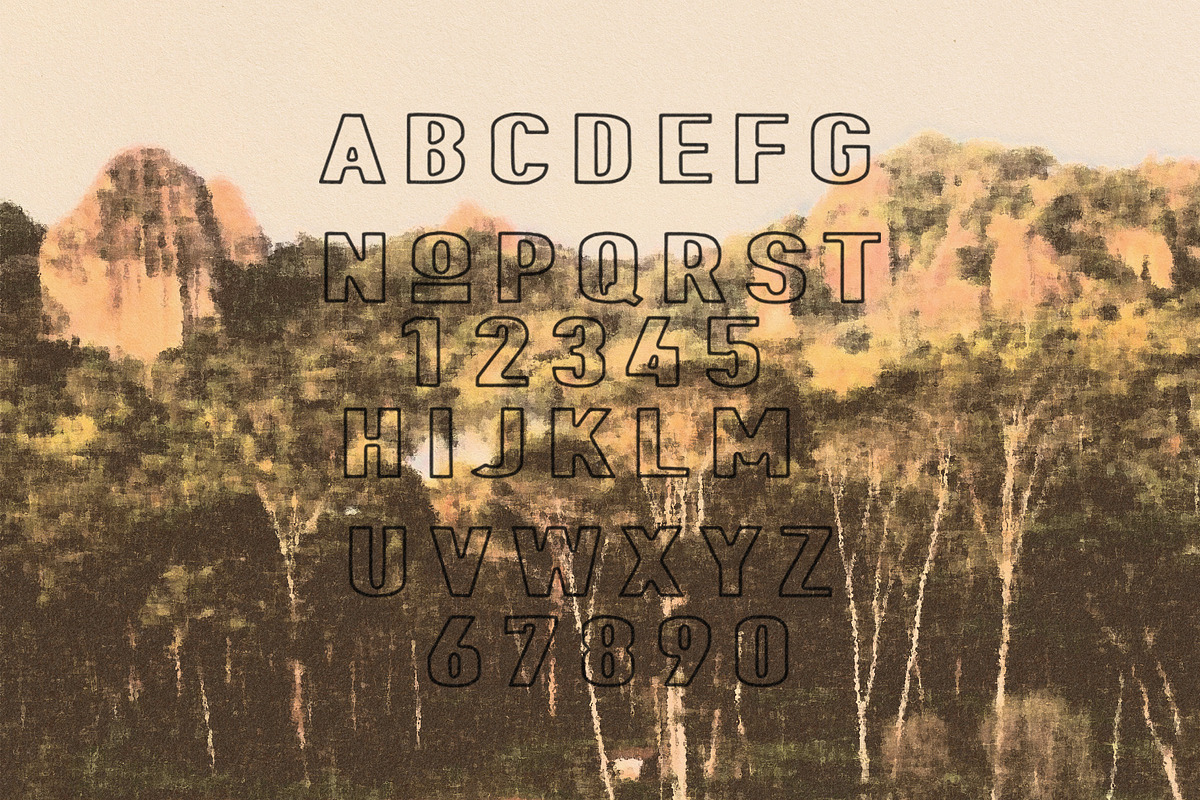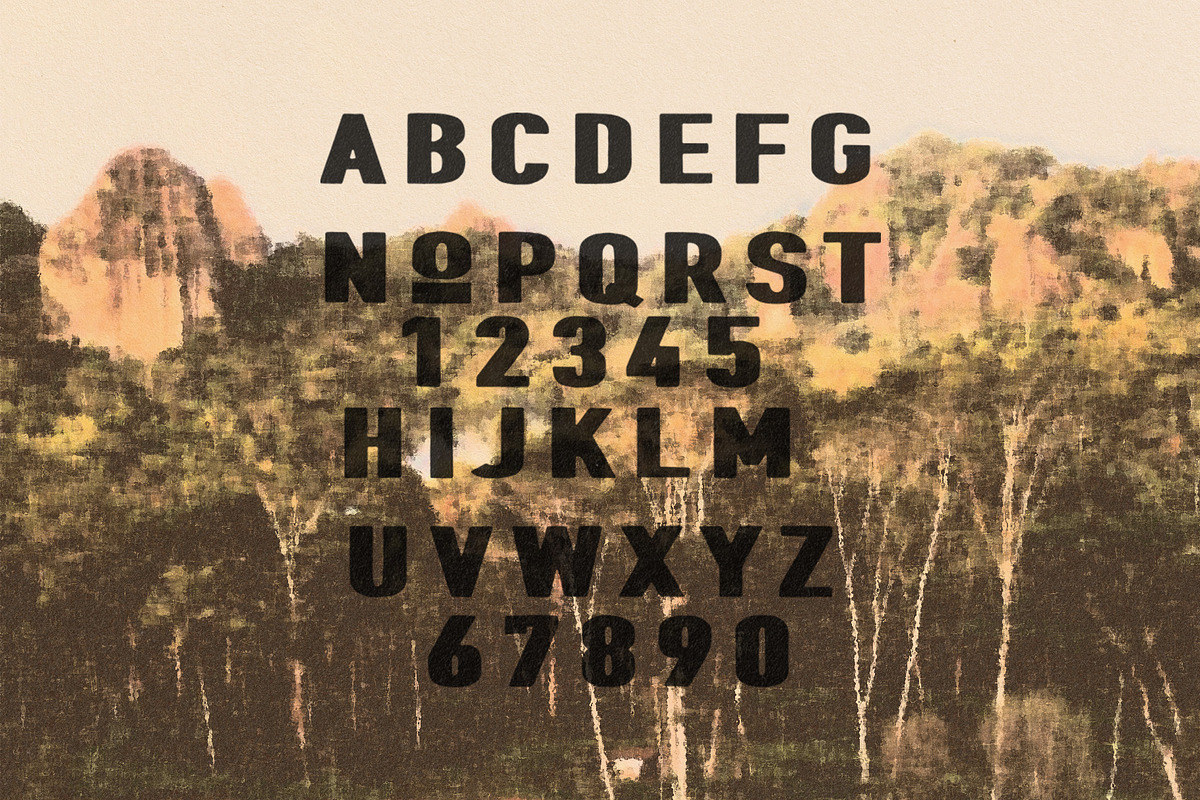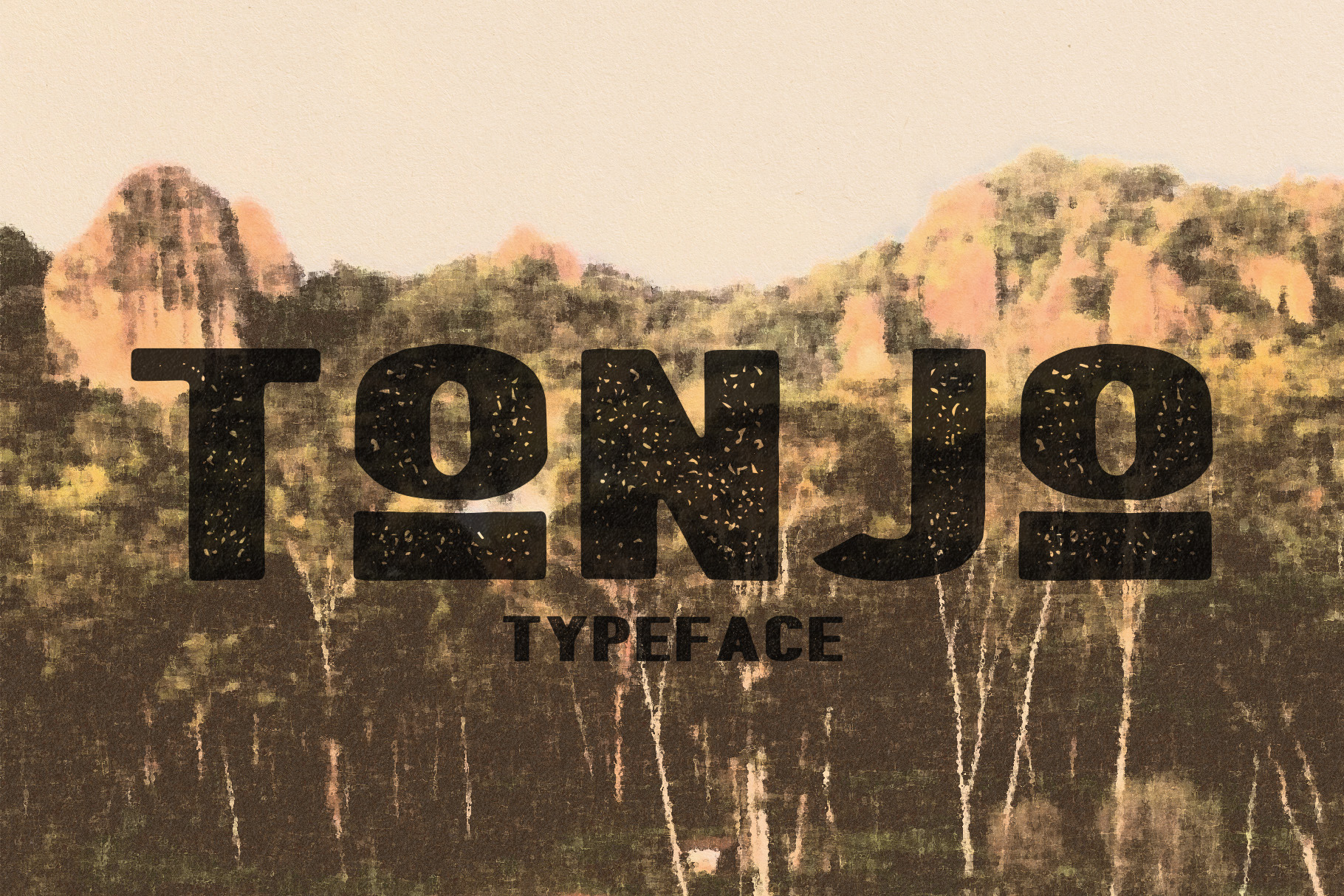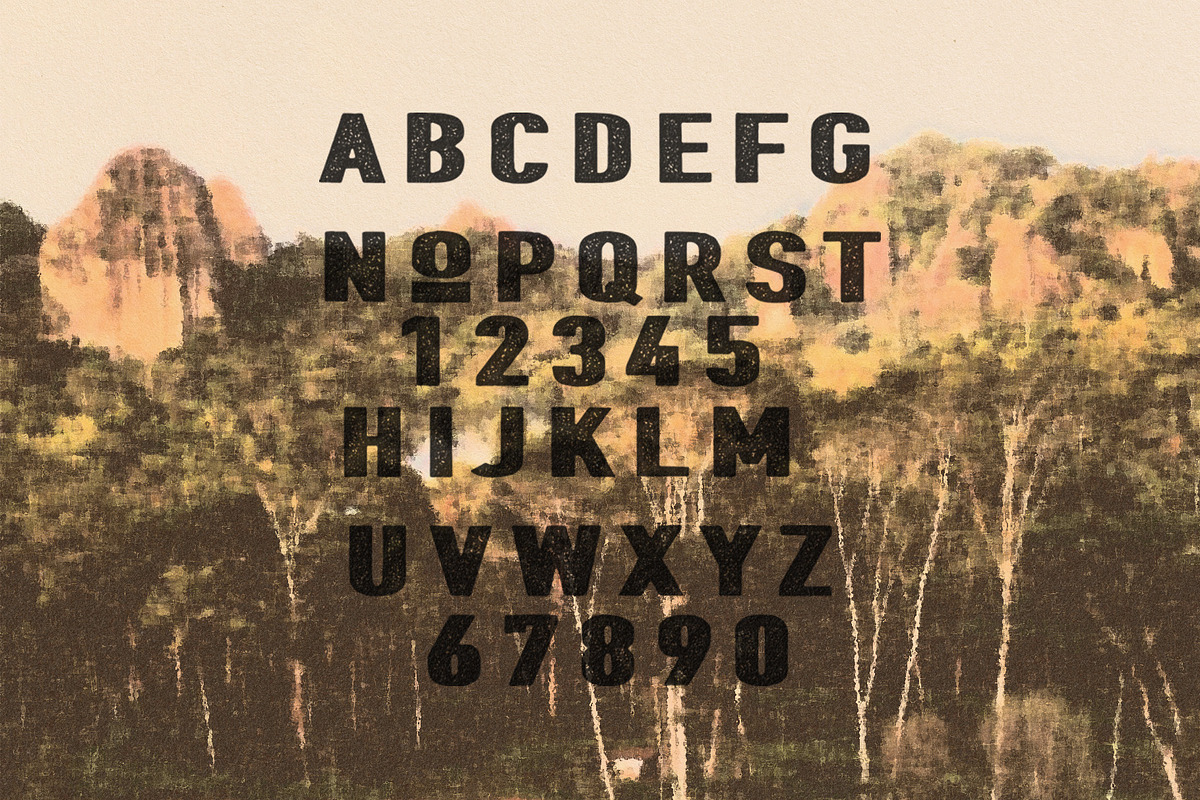
Tonjo Typeface
Tonjo Typeface Tonjo is a vintage typeface with a bold, solid, and characterful appearance. Each capital letter in this font has a strong and bold geometric shape, suitable for retro-themed designs, propaganda-style, or designs that want to display a strong, masculine, and authoritative impression.
Tonjo's distinctive feature is the smooth textured touch that makes it look like a stencil or manual screen print, giving an authentic vintage feel. Suitable for vintage posters, album covers, liquor branding, streetwear t-shirt designs, or editorial designs with a retro-rough feel.
With a composition of full capital letters and matching numbers, Tonjo offers high flexibility for various creative projects that want to stand out and have a classic impression.